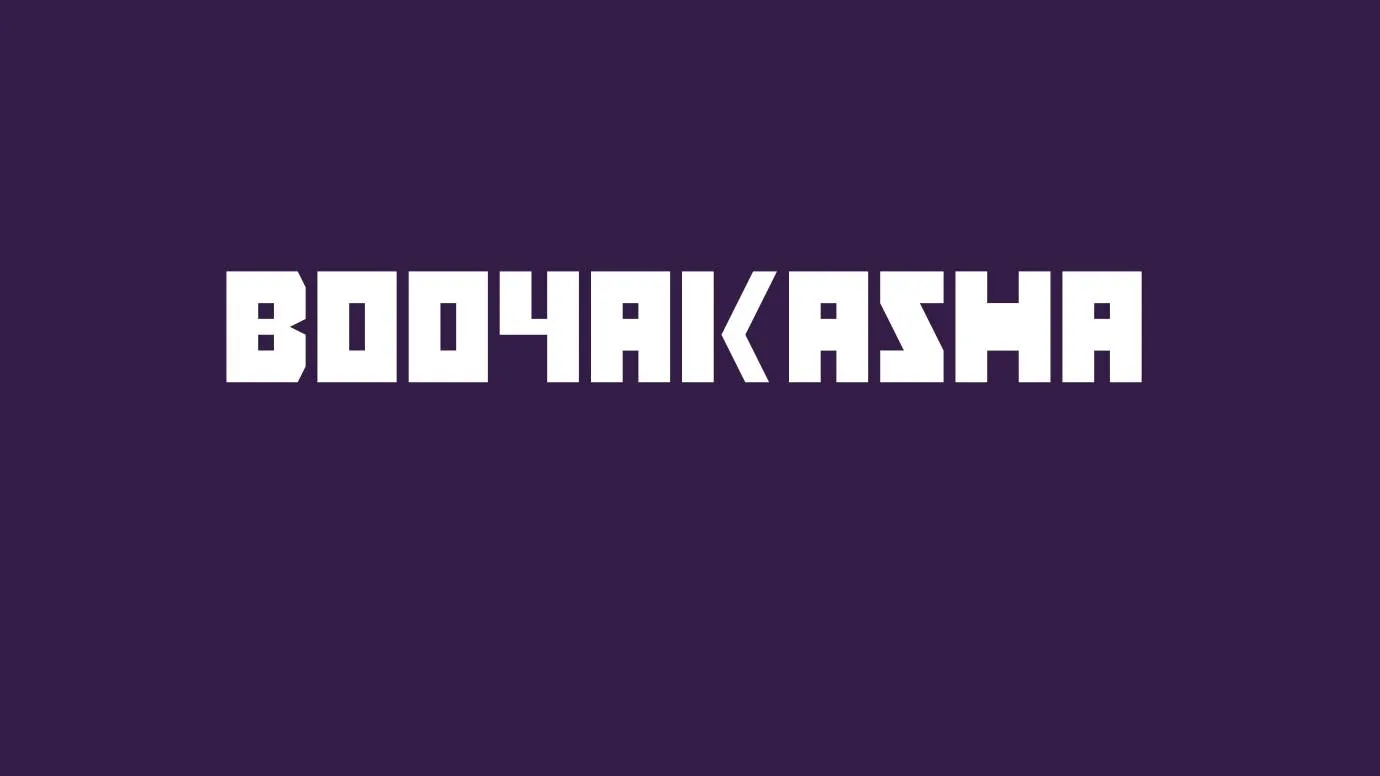
Booyakasha Font Family is a very attractive techno typeface it was designed by Jason Muriithi  Kiama and was launched in 2013. It has all capitalized characters which provides high readability also for all types of projects.
The look of this amazing font has a very bold and heavy look and it is available in both formats True Type Font and Open Type Font. So this typeface is very attractive and can be downloaded easily on Windows, PC, MAC, and Android.
Booyakasha Font